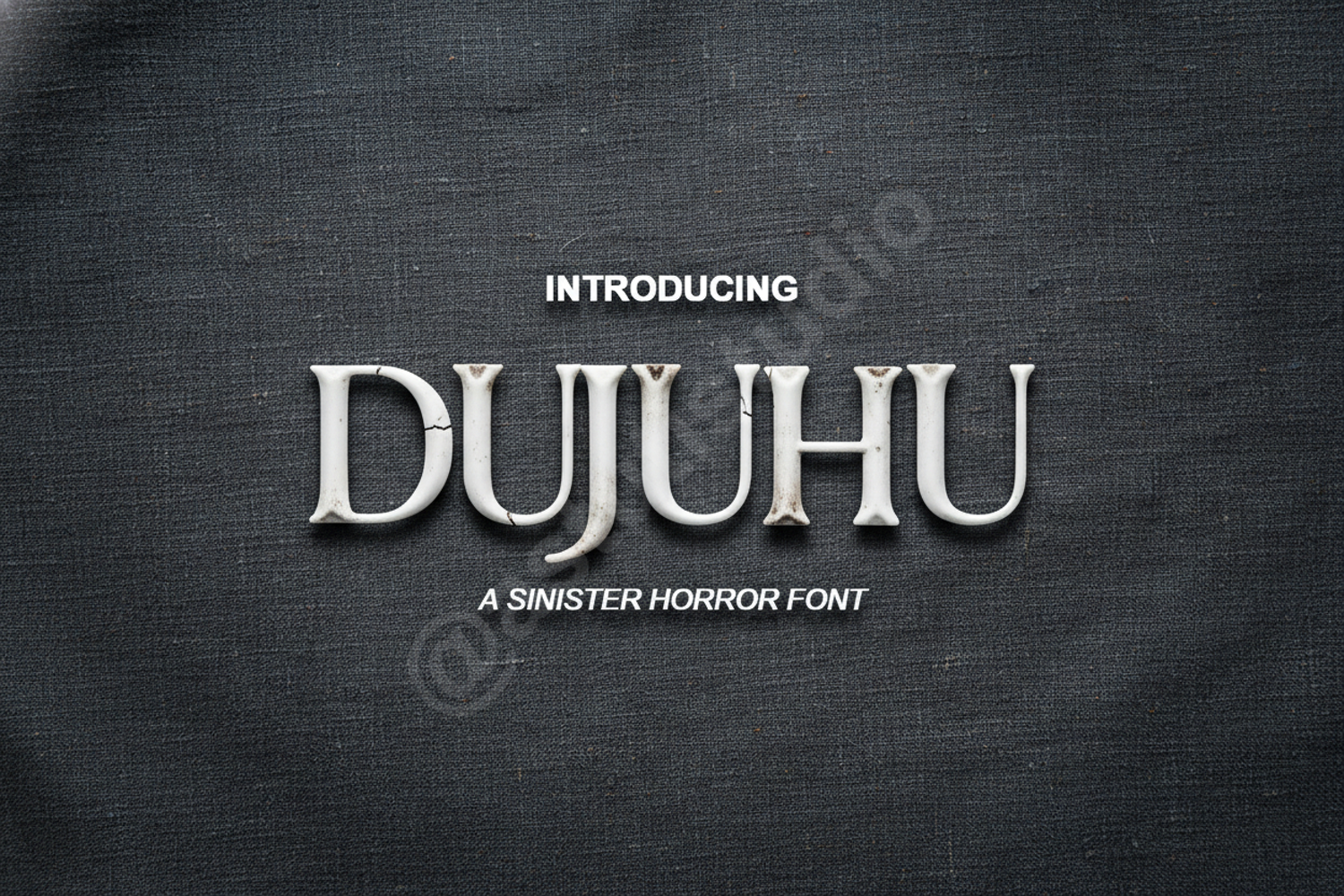
Dujuhu - Modern Elegant Serif Typeface
Dujuhu
Elevate your creative projects with Dujuhu, a premium serif font that seamlessly blends timeless elegance with contemporary sophistication. Crafted with meticulous attention to detail, Dujuhu offers a high-end aesthetic that brings a touch of luxury to any design. Its balanced proportions and refined curves make it a versatile choice for designers seeking both readability and a distinct personality.
- Complete character set including uppercase, lowercase, and numerals
- Comprehensive punctuation and symbols
- Multilingual support for global design projects
- Branding and Identity: Create memorable logos and brand guidelines that exude professionalism.
- Wedding Stationery: Design sophisticated invitations, save-the-dates, and event programs.
- Editorial Design: Perfect for magazine layouts, book covers, and high-end brochures.
- Social Media: Enhance your digital presence with eye-catching headers and promotional graphics.
- Product Packaging: Add a premium feel to labels and box designs for luxury goods.